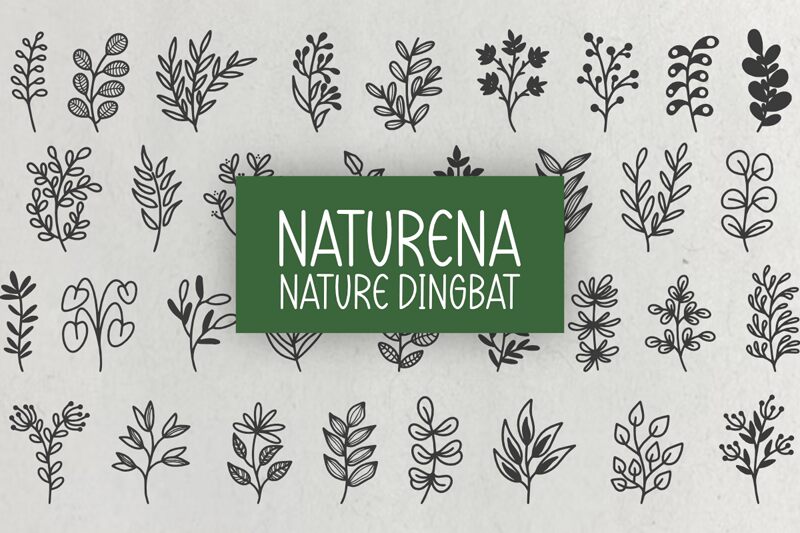
Naturena, designed by Letterayu, is a dingbat font that offers a breath of fresh air with its nature-inspired aesthetic. Each character is crafted to embody the essence of the outdoors, featuring an array of botanical motifs that bring an organic touch to any design project. With its delicate floral elements and leafy designs, Naturena exudes a rustic charm that can seamlessly blend into themes ranging from eco-friendly branding to whimsical wedding invitations.
The font's visual harmony lies in its simple yet evocative shapes, which capture the spirit of nature's own artistry. The stylistic uniformity across Naturena's character set ensures coherence when creating patterns or accents in your creative endeavors. Whether you're looking to add a natural flair to graphic designs or seeking an emblematic icon for products rooted in sustainability, Naturena stands out as a versatile choice that speaks with an earthy eloquence.
Embrace the natural elegance of Naturena for projects that demand an organic vibe and watch as it infuses your work with the serene sophistication of nature’s timeless beauty.